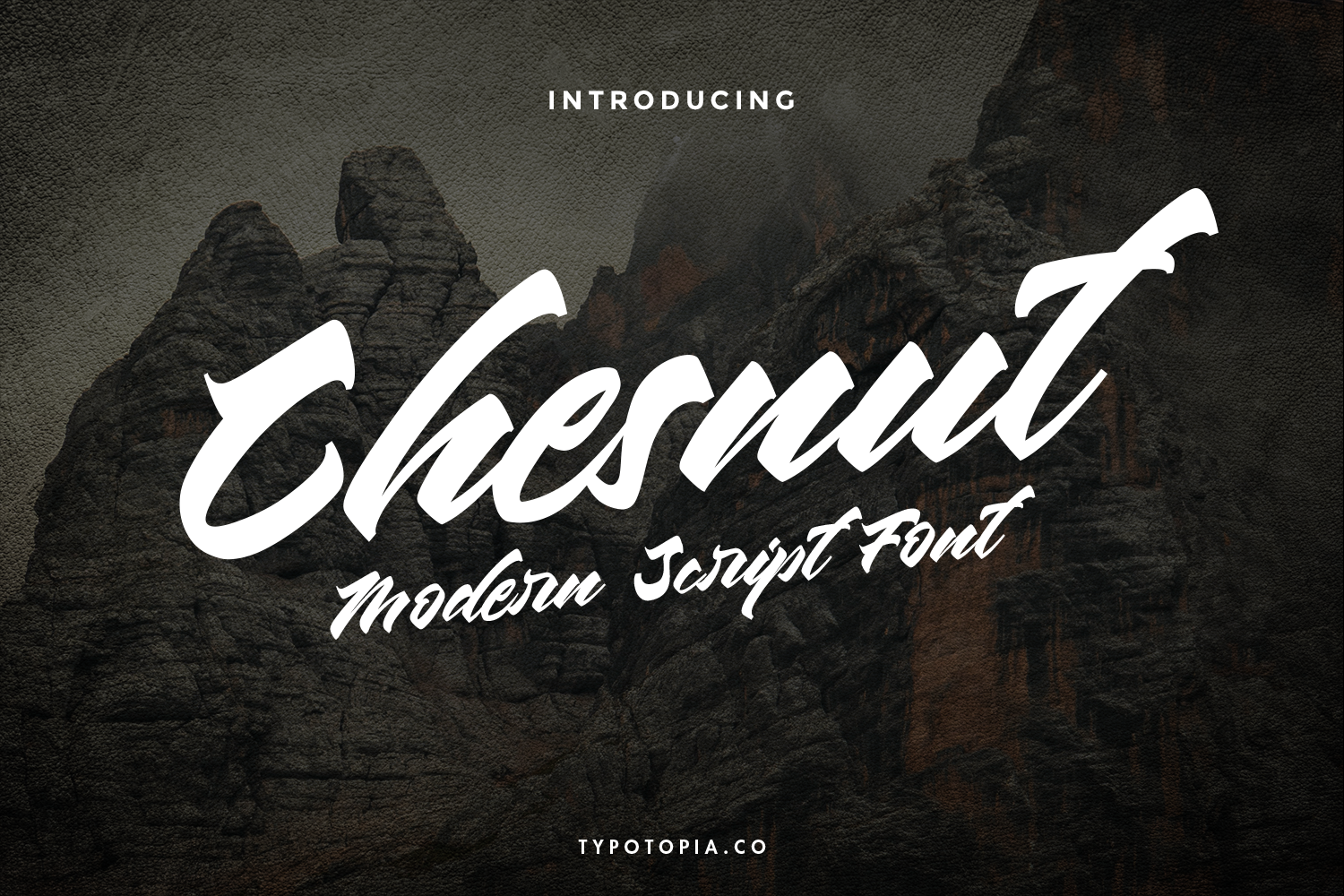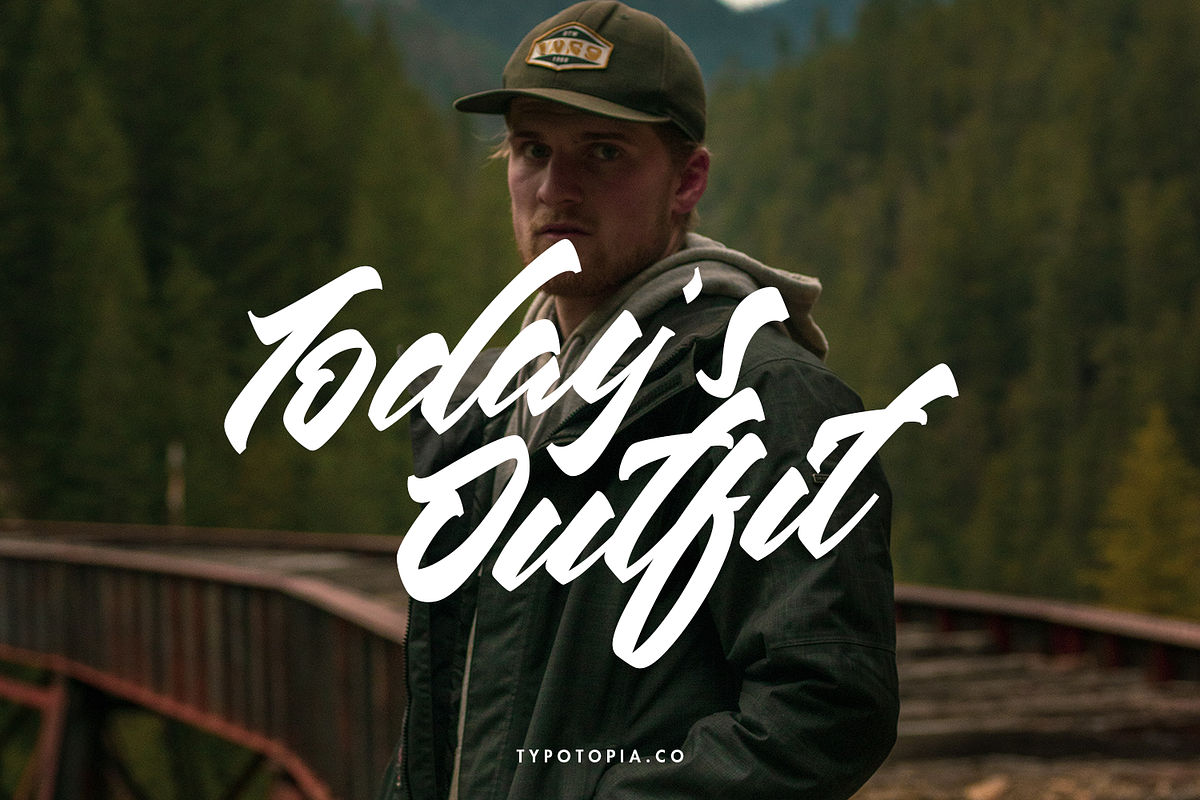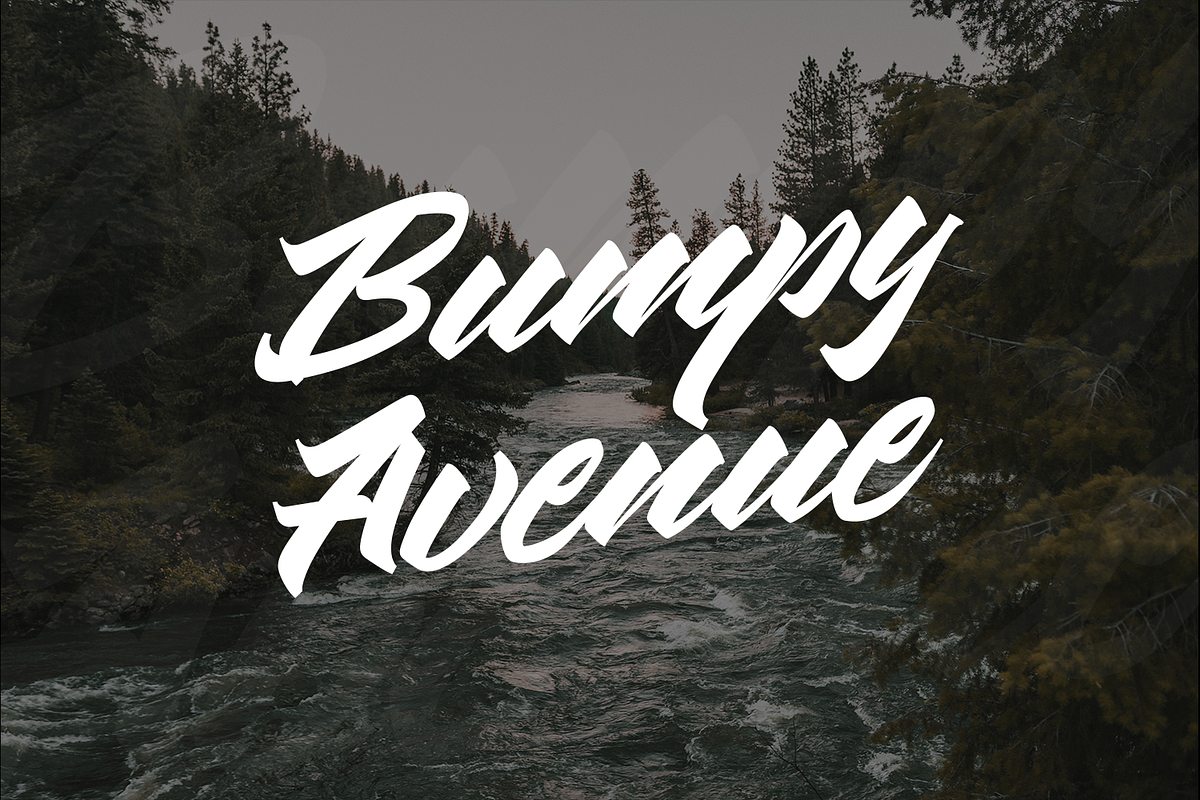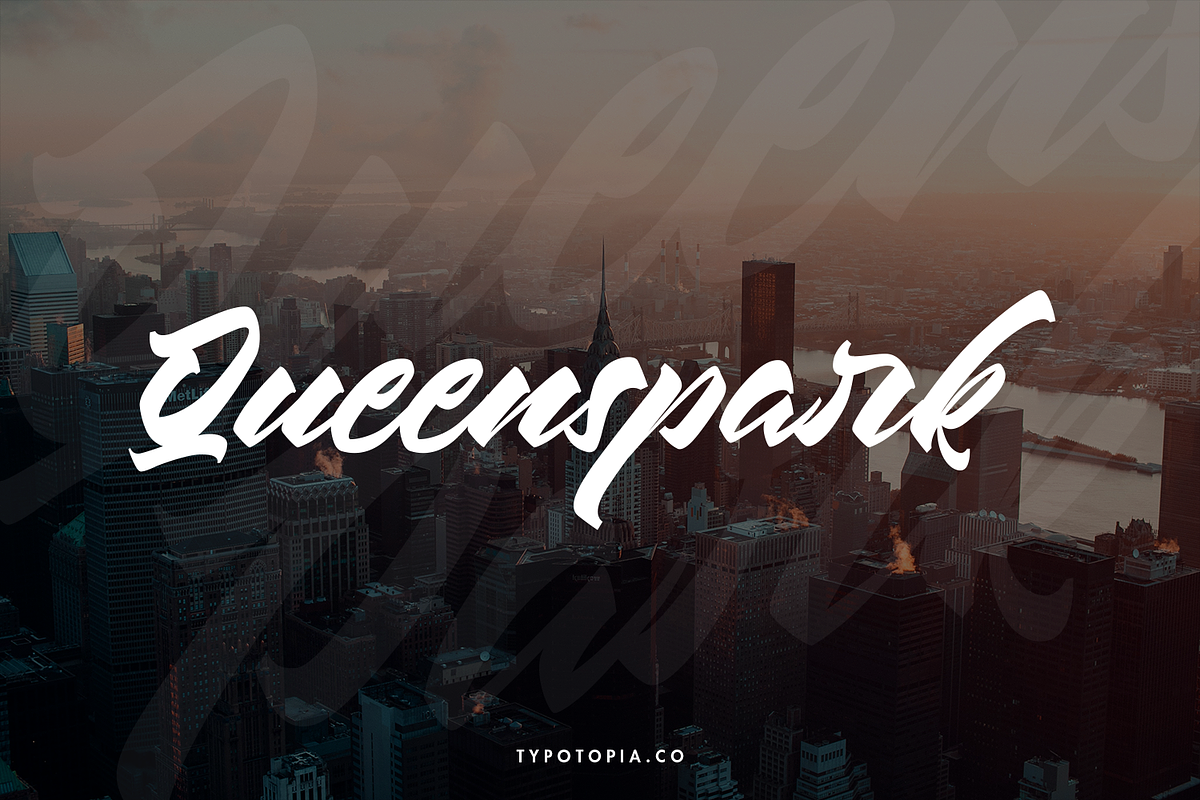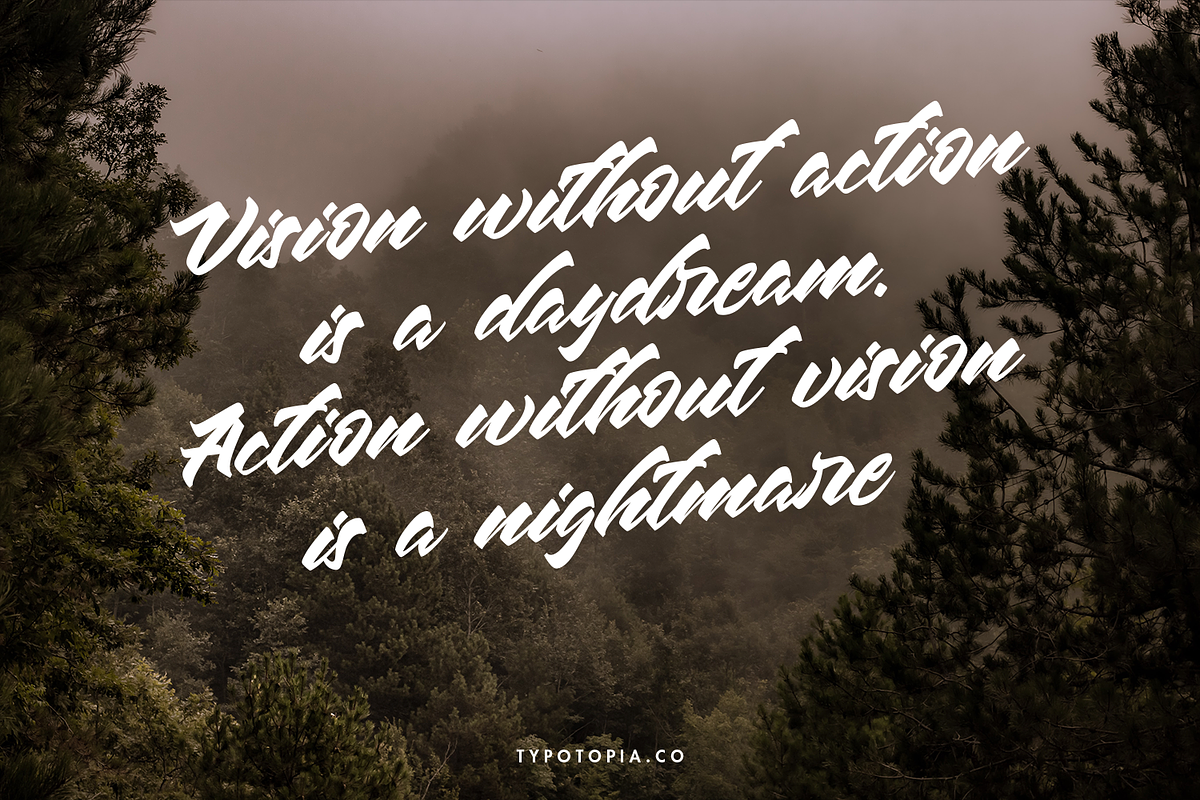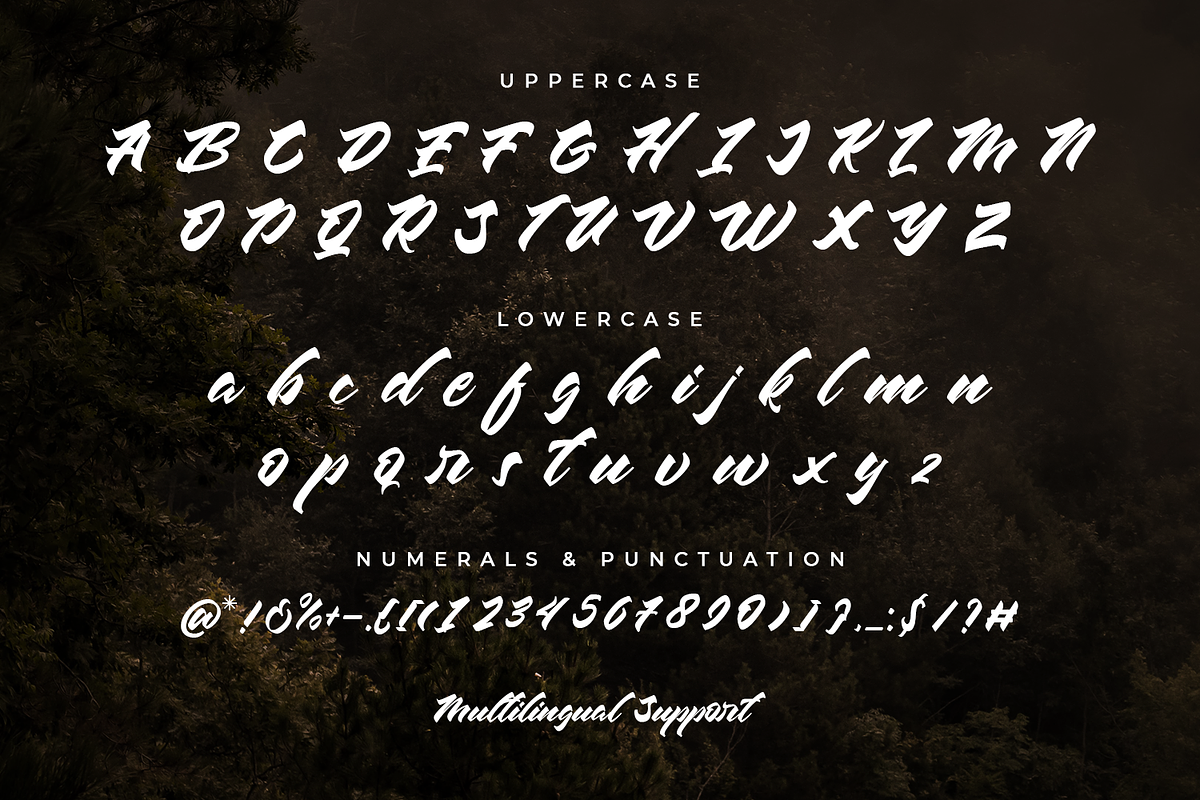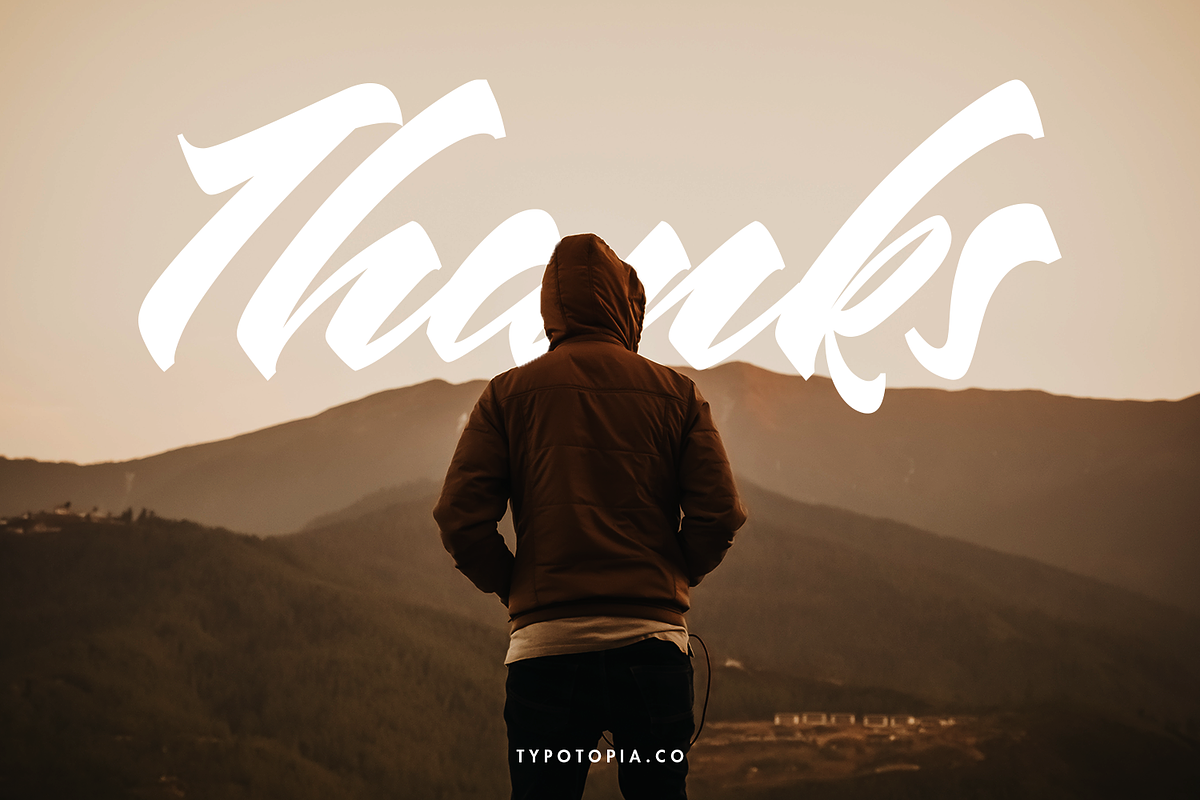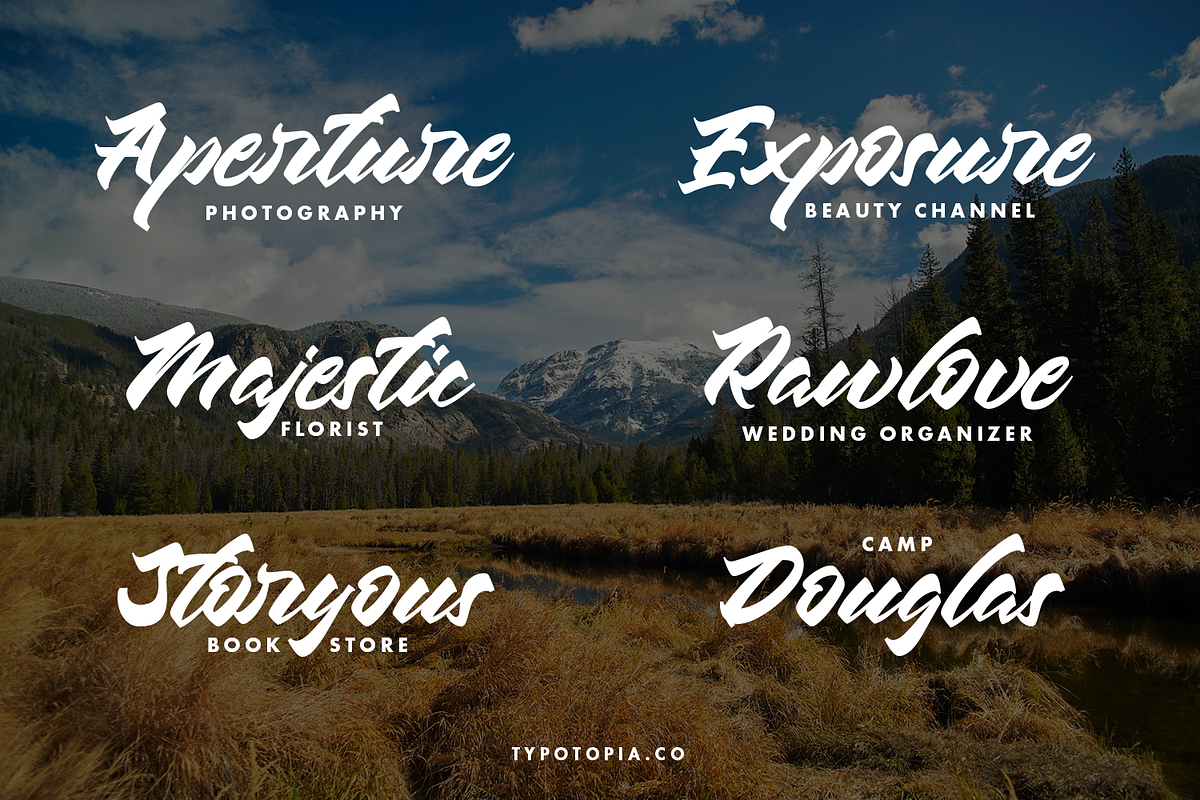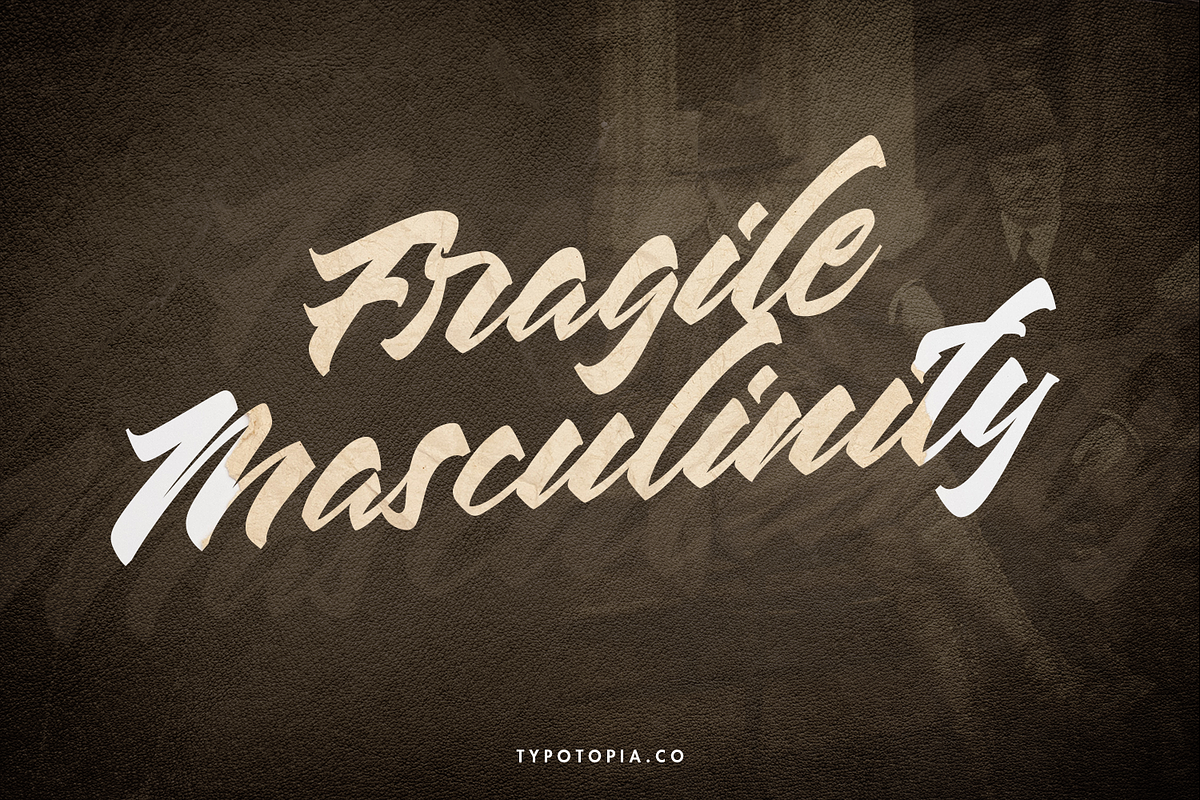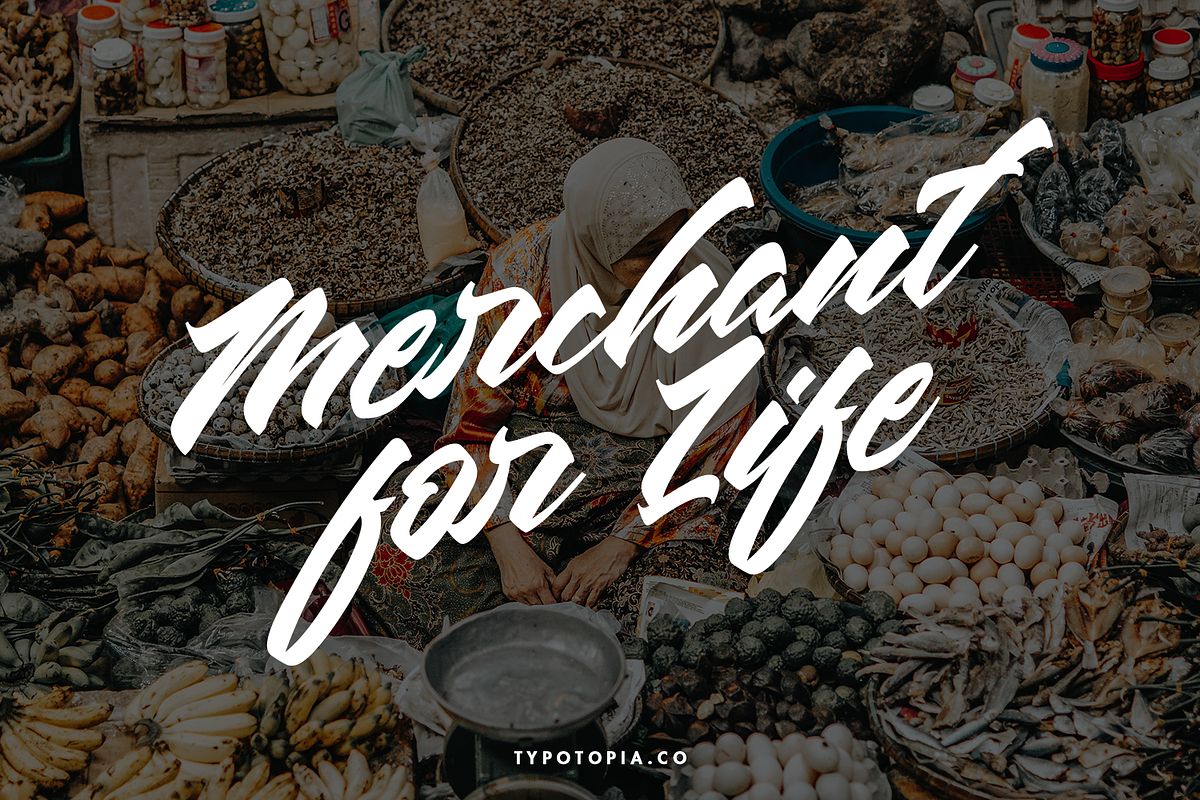
Chesnut Modern Script Font
Introducing, Chesnut a Stylish Modern Calligraphy Font with Casual Style
Chesnut is a Stylish Modern Calligraphy Font with Casual Style that is absolutely great for your next creative project such as logos, printed quotes, invitations, cards, product packaging, headers, Logotype, Letterhead, Poster, Apparel Design, Label, and etc.
This Versatile Font includes also support a Multilingual Characters. Making this Font a Swiss Army knife in your Font Library. It's extremely fun to use as each word can be transformed to your liking.